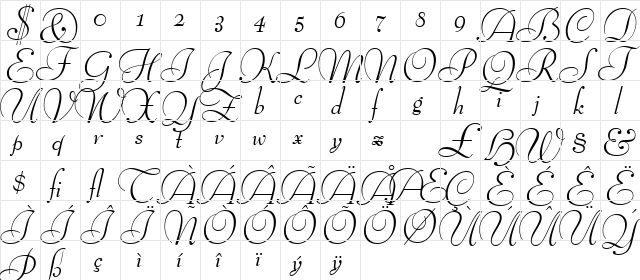
BernhardMod ItSwash BT Italic Swash
Design Context for BernhardMod ItSwash BT Typeface
BernhardMod ItSwash BT flows with the natural rhythm of handwritten lettering, making it ideal for designs that call for warmth and personal expression.
Font Pairing: Combine BernhardMod ItSwash BT with a simple geometric sans for maximum contrast — the tension between flowing curves and clean structure is a classic typographic pairing.
Pro Tip: Pair BernhardMod ItSwash BT with a clean sans-serif for supporting text. The contrast between fluid script and geometric structure creates an elegant typographic hierarchy.